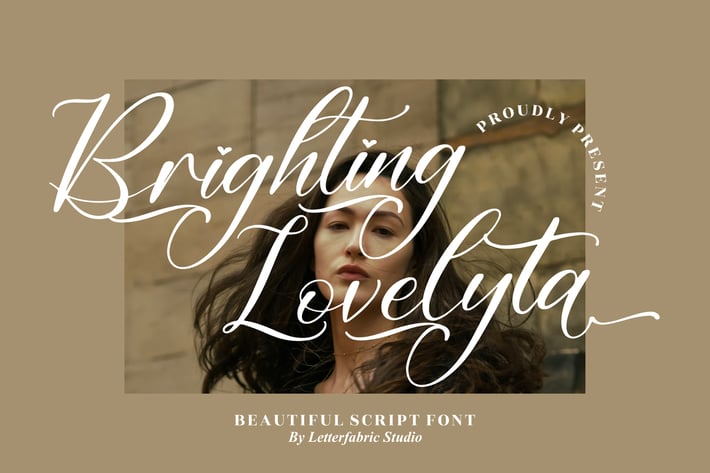
Brighting Lovelyta Script Font
Brighting Lovelyta is a beautiful and elegant script font designed to bring a sense of romance, class, and timeless charm to your creative projects. With its flowing lines and delicate curves, this typeface is perfect for creating luxurious and feminine designs with a handcrafted touch.
Each character is gracefully connected, making it ideal for wedding invitations, branding, and editorial layouts that need a soft and sophisticated feel.
Uppercase & Lowercase Letters
Alternates & Ligatures
Numerals & Punctuation
Smooth Flowing Script Style
Wedding Invitations
Branding & Logo Design
Packaging Design
Editorial & Magazine Titles
Fashion Campaigns
Quotes & Greeting Cards
Soft, elegant, and endlessly romantic — Brighting Lovelyta turns your words into timeless works of art.